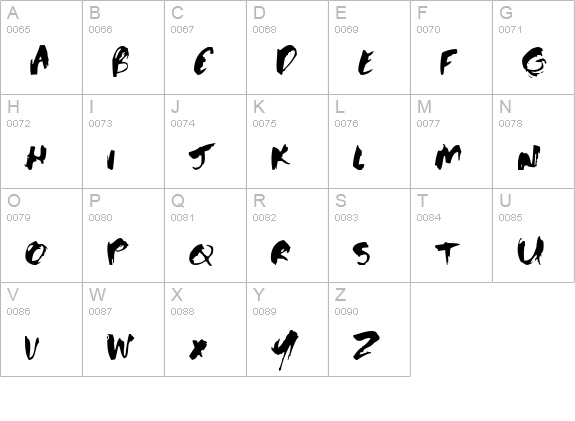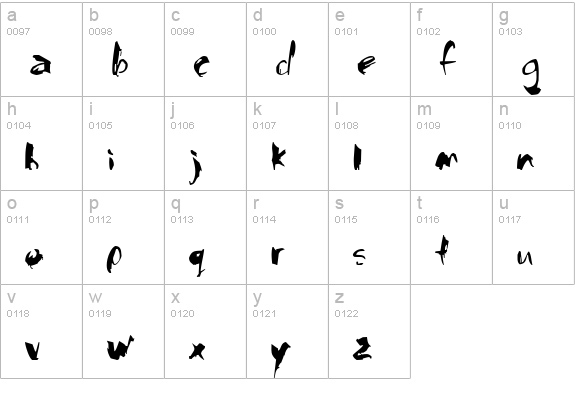
Baloney Font Details
Introducing Baloney font, a whimsical and playful typeface that will add a touch of fun to your designs. With its quirky curves and unique character shapes, Baloney font is perfect for projects that require a lighthearted and energetic feel. Whether you're designing greeting cards, posters, or social media graphics, Baloney font will bring a sense of joy and creativity to your work. And the best part? Baloney font is completely free to download at FontsMarket.com. That's right - you can easily access this charming font without having to spend a dime. So why wait? Add Baloney font to your collection today and let your creativity run wild!